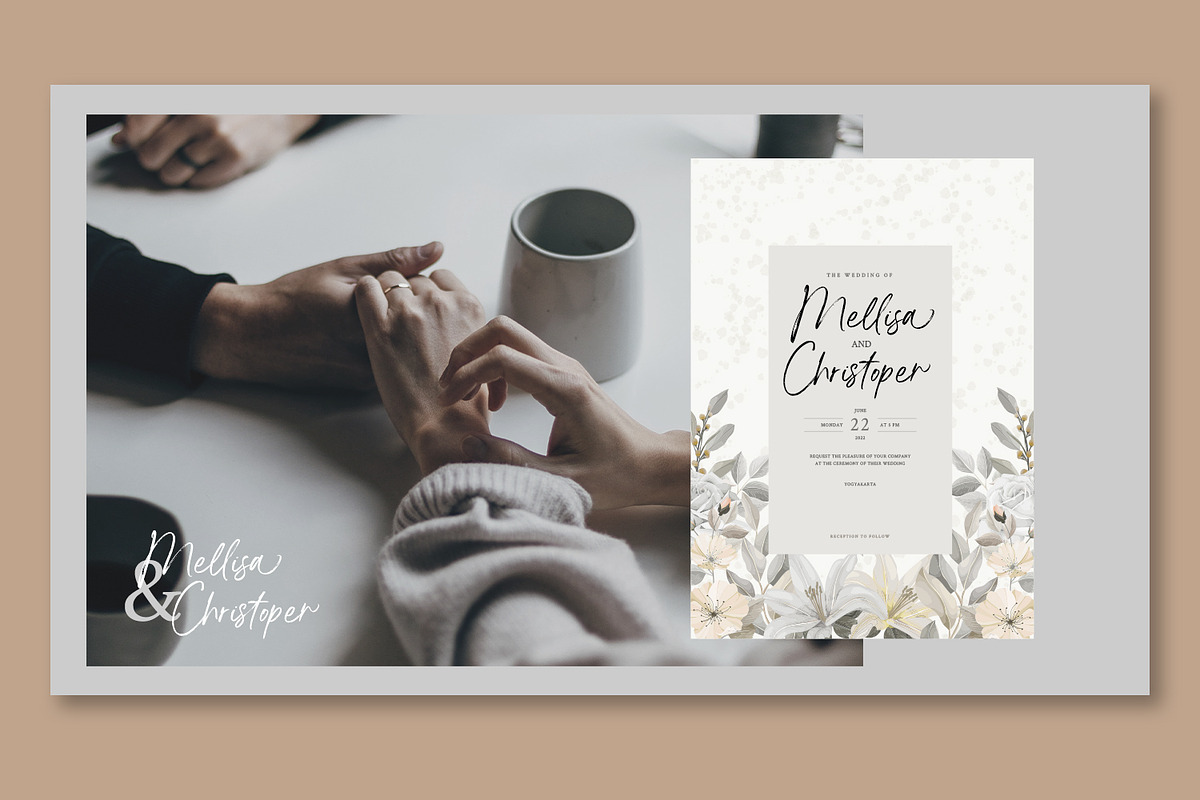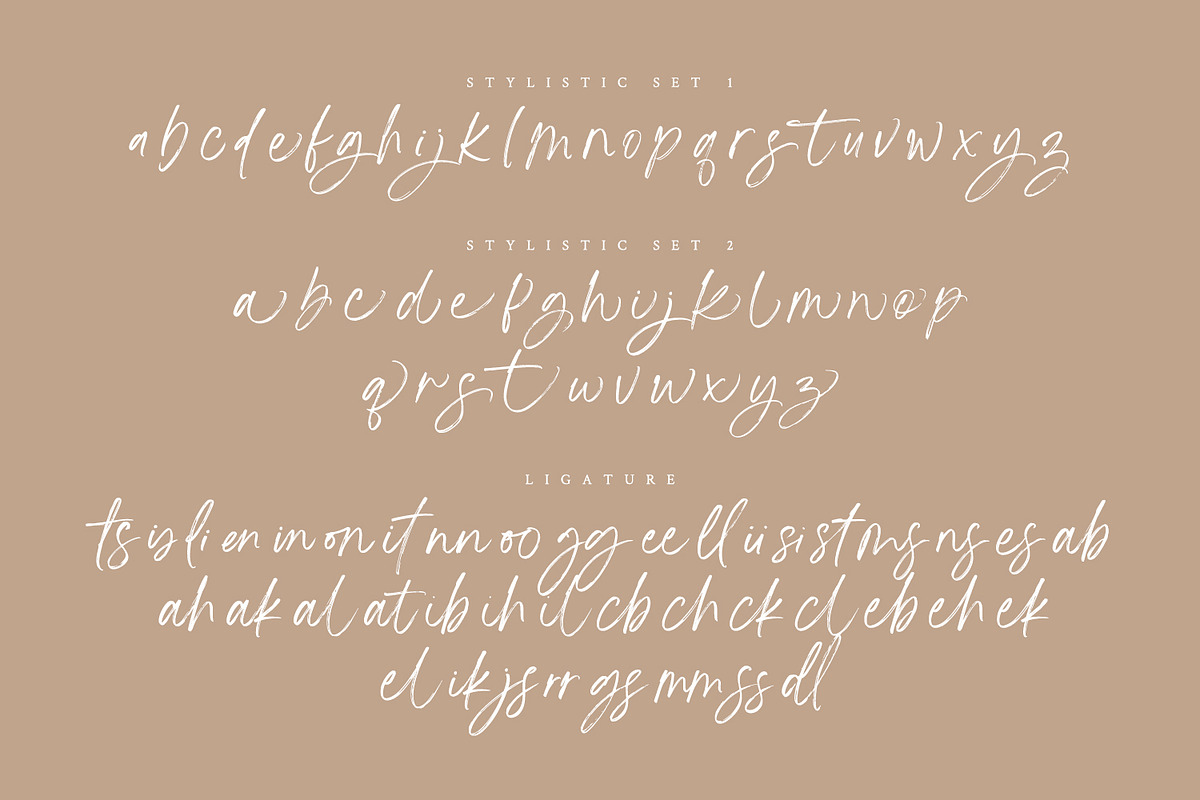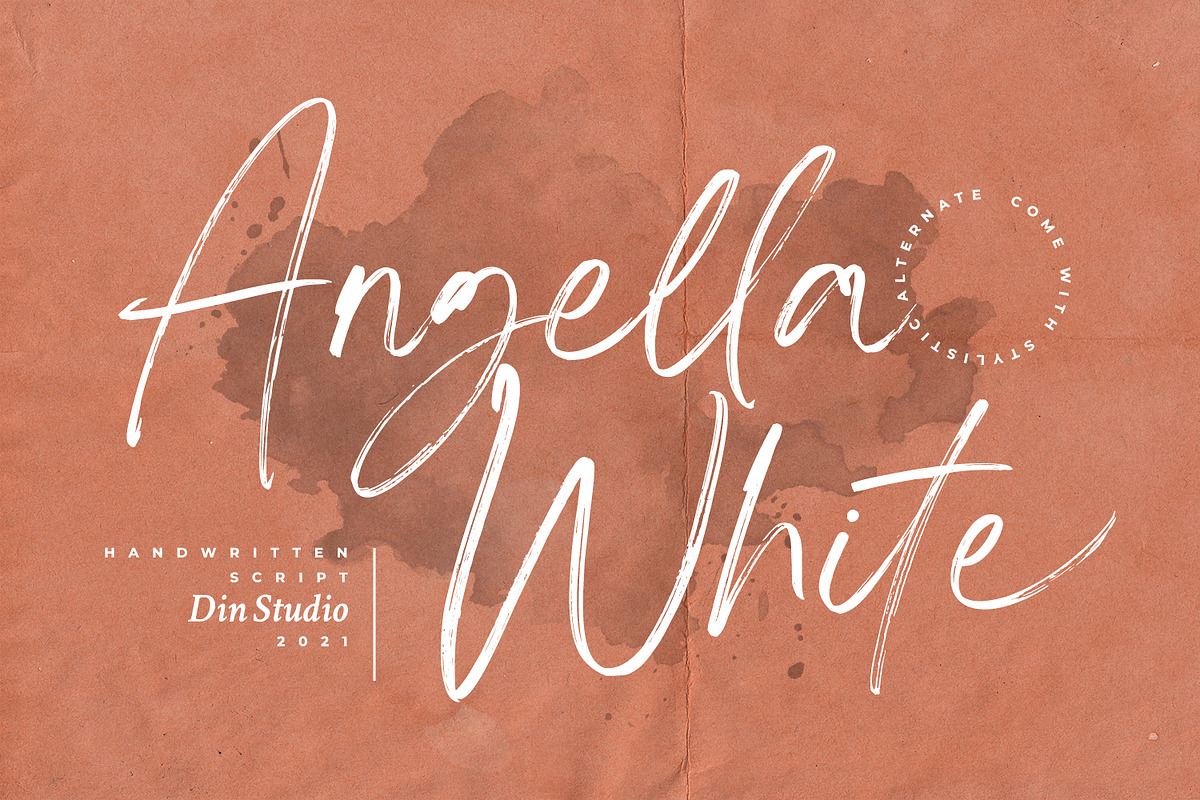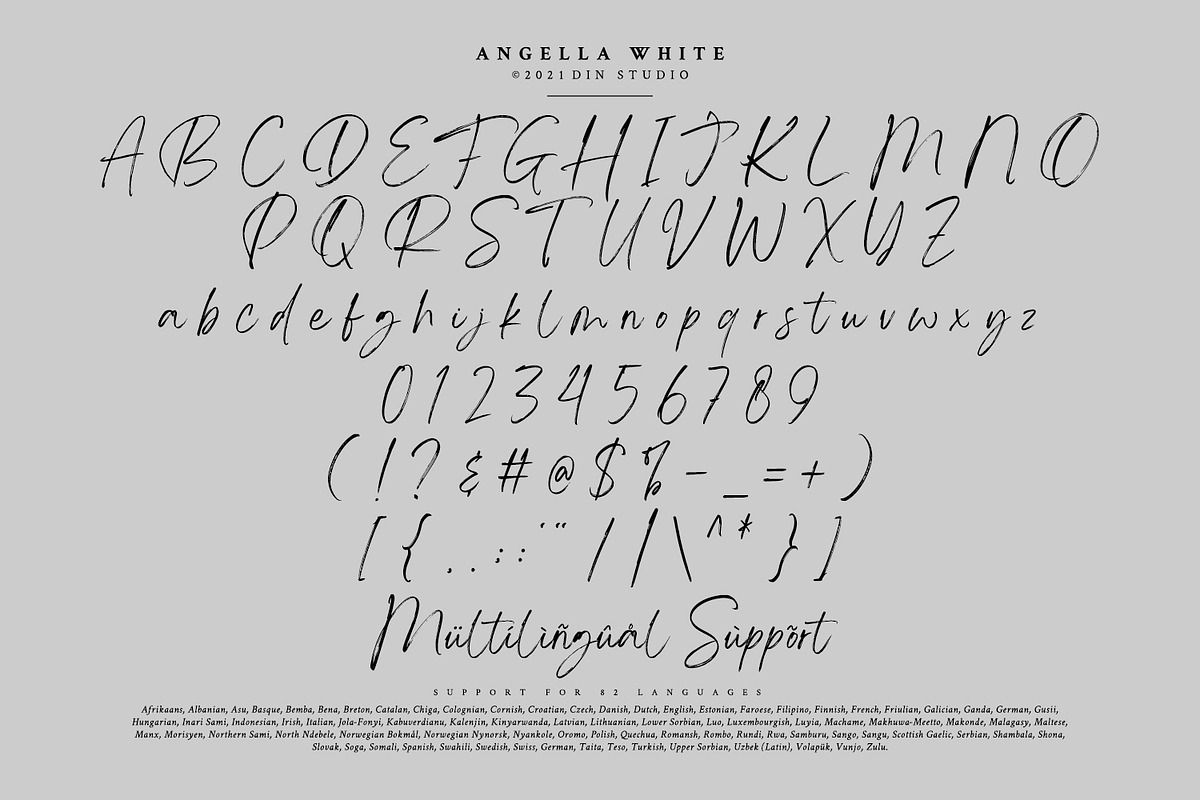
Angella White
Looking for a font that’ll make your branding radiate elegance? Something that’s versatile, stylish, and eternal? Get ready to transcend to a world of magic, laughter, and butterflies. Your branding will spark delight and engage everyone who sees it! Introducing Angella White – A Brush Font.
A beautifully handcrafted font combined with brush style that’ll make your guests sing and elevate your projects! Every stroke, and curve was created to entice happiness and elegance.
Standard Ligatures
Stylistic Sets
Multilingual Supports
Numerals and Punctuation
Angella White fits best for any design projects, such as posters, banners, logos, book covers, album covers, quotes, invitations, greeting cards, name cards, headings, printed products, merchandise, social media, etc. Find out more ways to use this font by taking a look at the font preview.